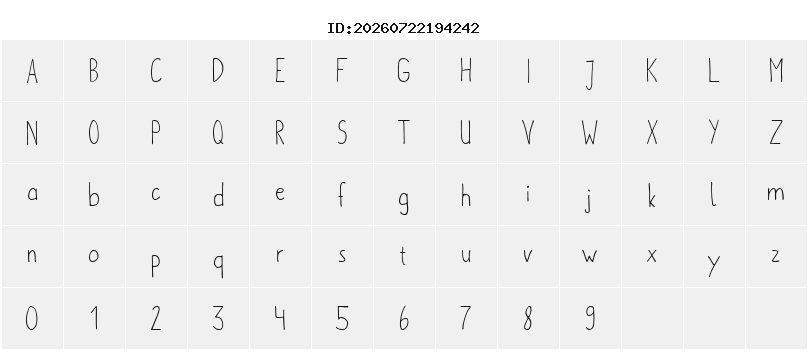
metafors Preview
• Font Name: metafors
• Designer: Markus Wolf
About metafors.ttf
metafors.ttf is a modern, elegant sans-serif font designed for ultimate readability and visual harmony. Perfect for branding, headlines, web design, and print materials.